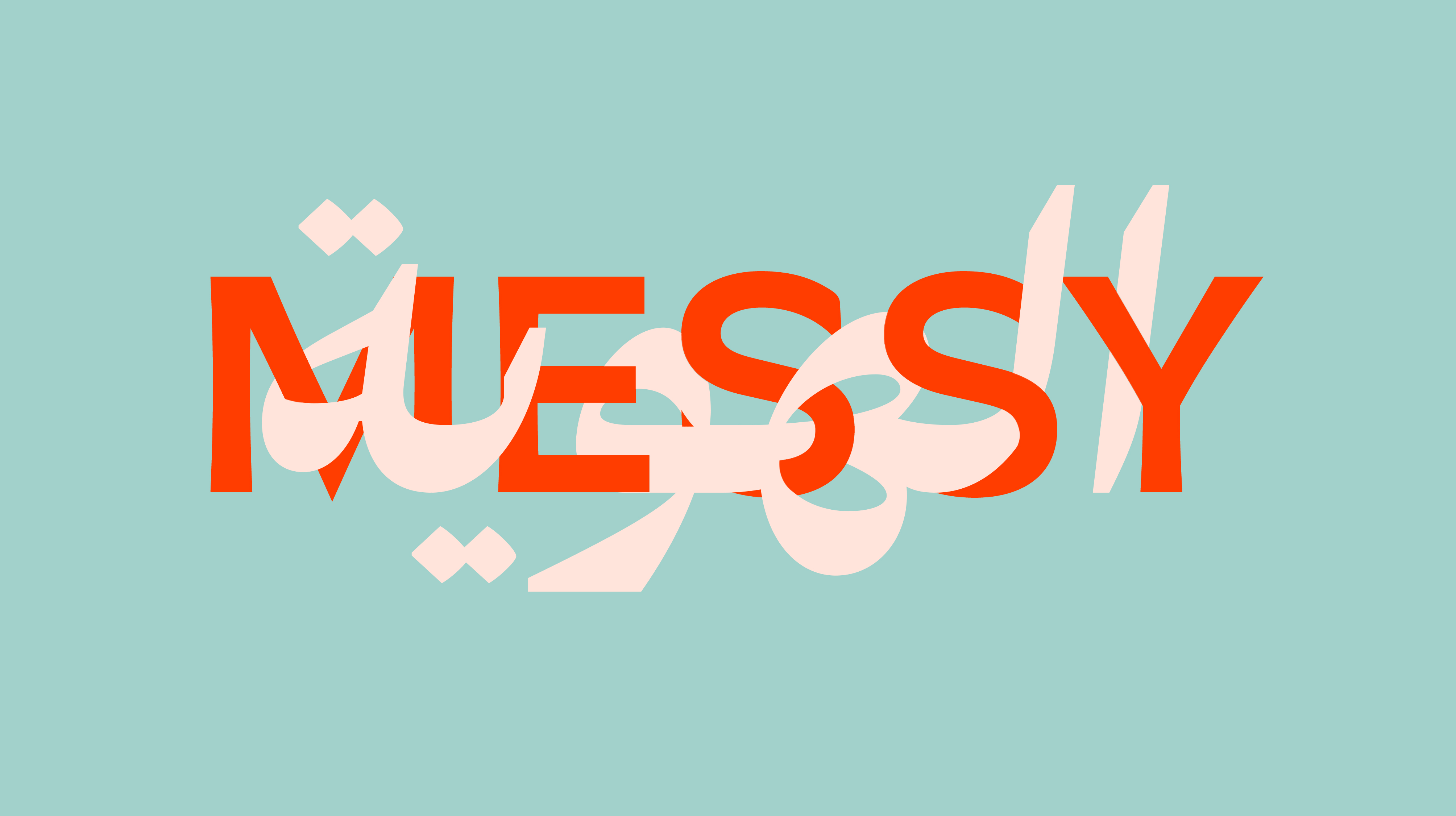
Messy
Identity
“LArab”
An ongoing poster series exploring the fun and messy aspects of growing up half Arab in LA.
At age 9 my dad fled political turmoil in Egypt to seek a better life in LA in the ‘60s. He could bring nothing but a single bag. A painful event, he never fully recovered from. Since his passing, I started this body of work to help me unpack and memorialize the heavy and wonderfully light aspects of how that experience shaped his life and its impact on mine.
Each poster explores one moment of friction (be it funny or serious) where Arab and American identities clashed while growing up in Los Angeles.
- All latin based type is set in Sunset Gothic which is modeled after the uniquely Californian '60s hand lettering style and is an homage for when my dad first arrived in LA from Egypt.
LArab Poster
A blending of LA and arabic script which literally reads “Arab” from right to left connects to the crossbar of the iconic LA logo that has calligraphic embellishments on the serifs.
Project Logo
This is a detail shot of the logo in the corner of each poster in the series. The arabic script says “identity” from right to left.